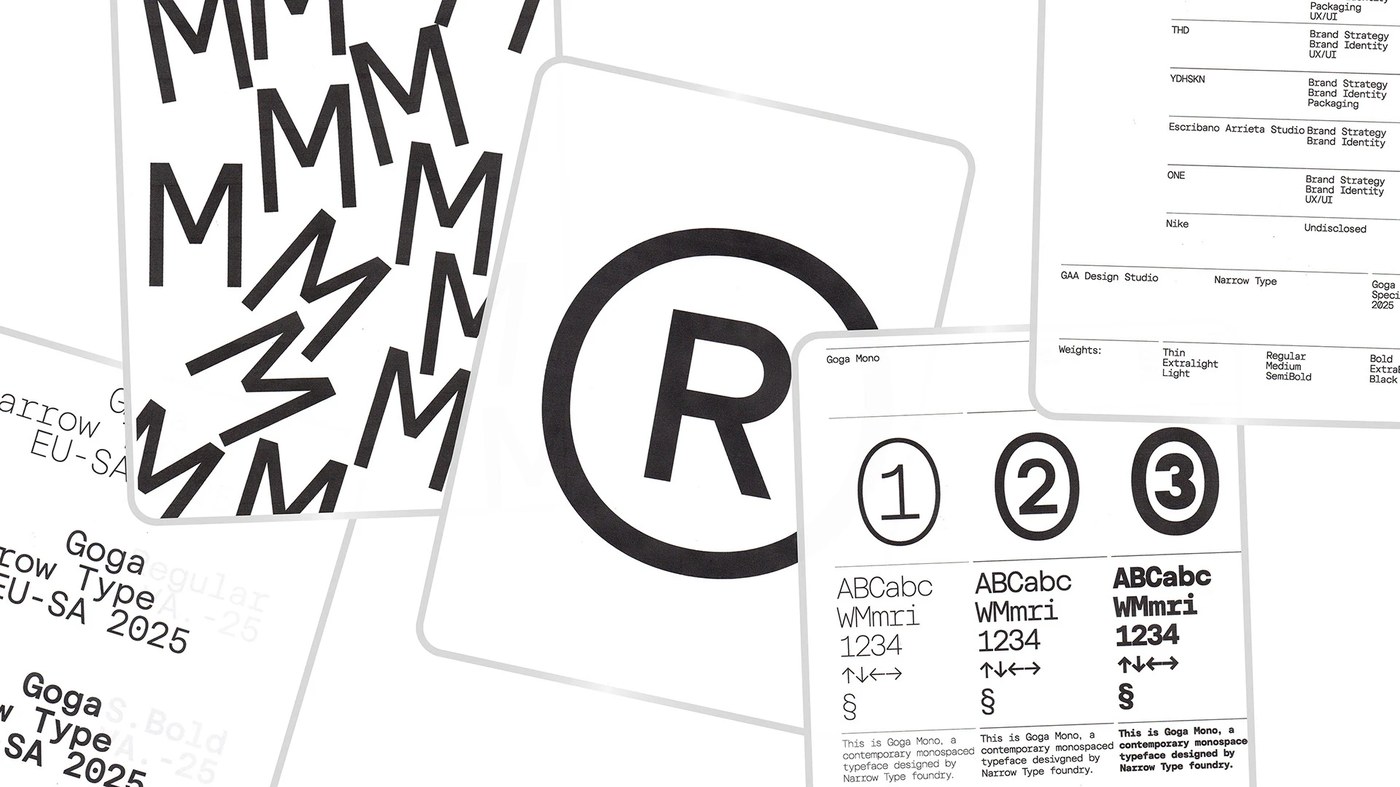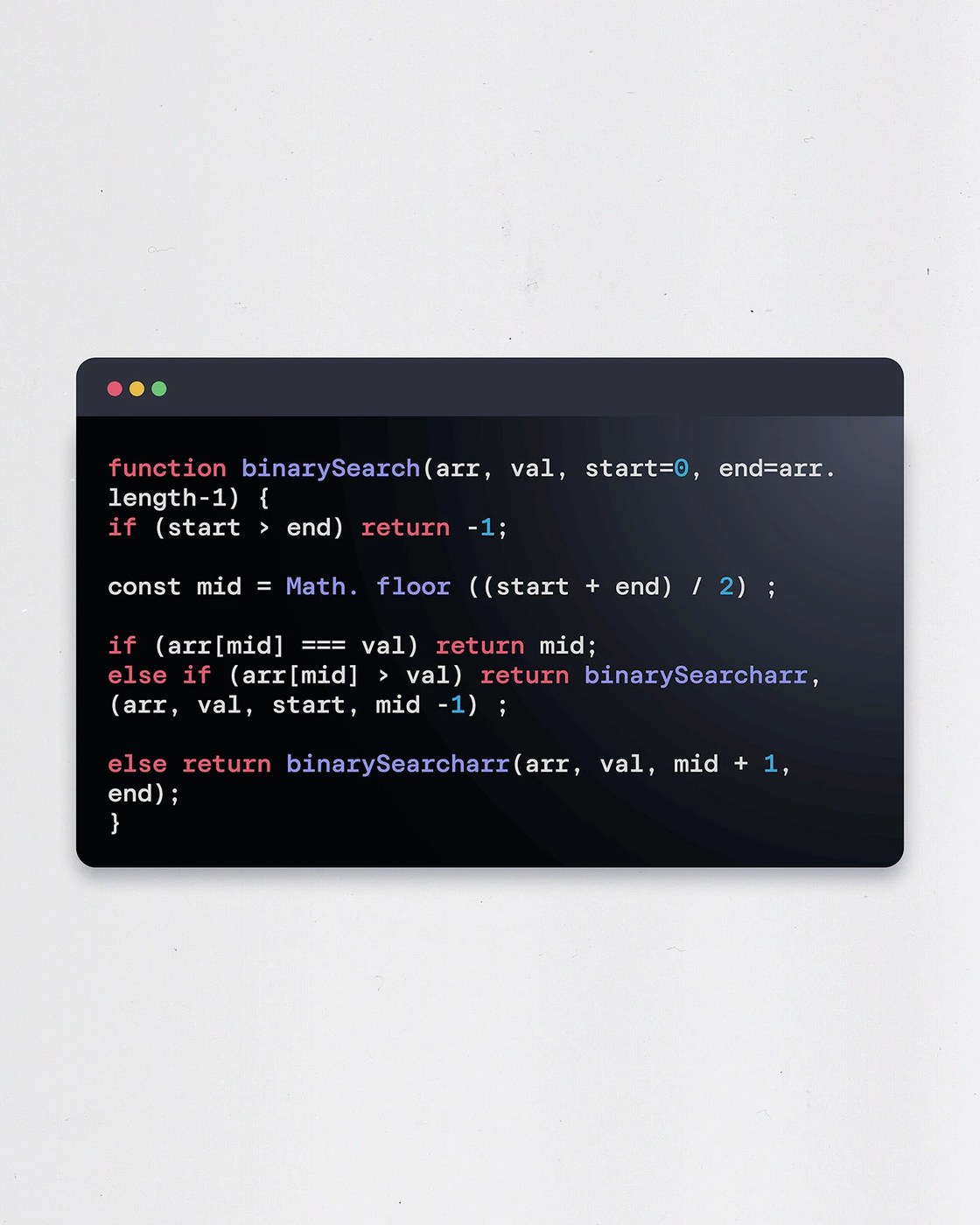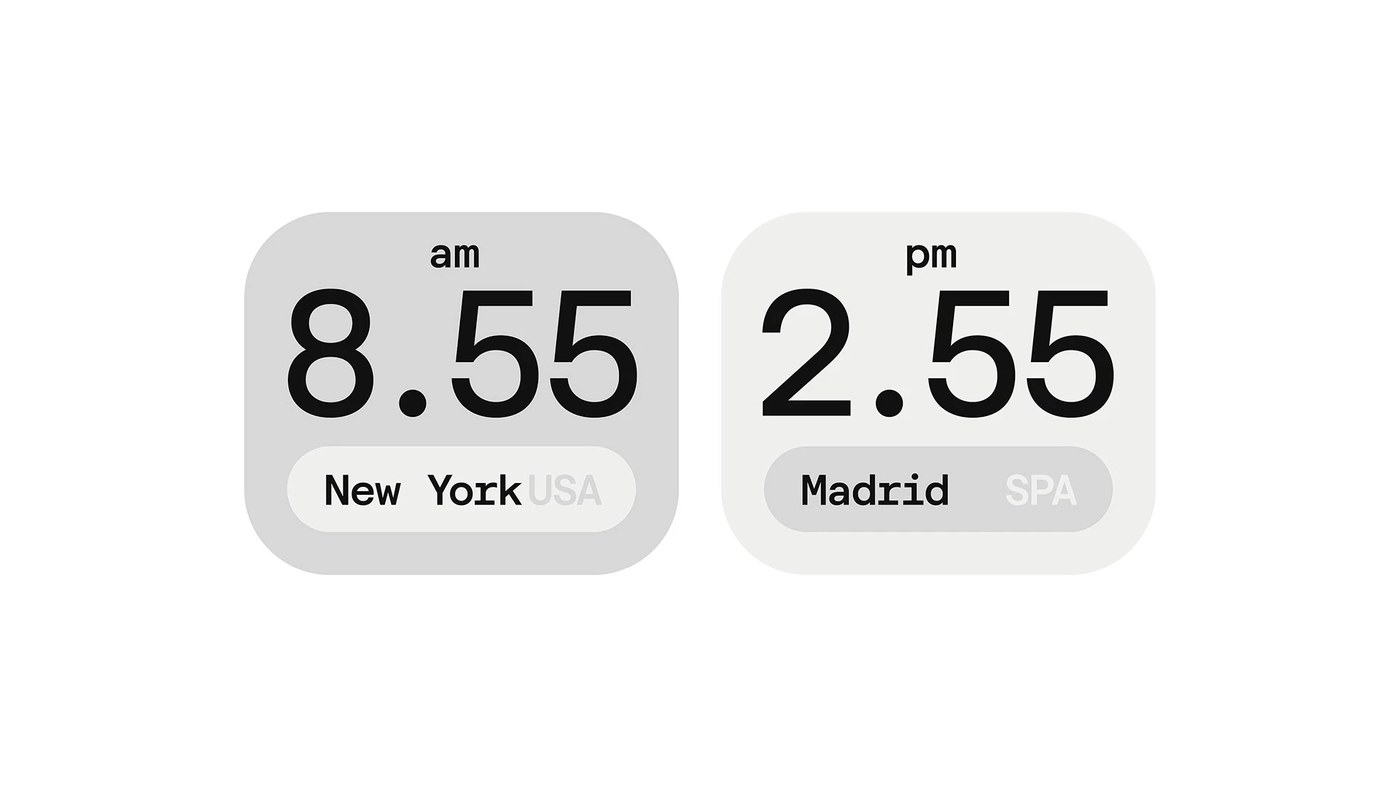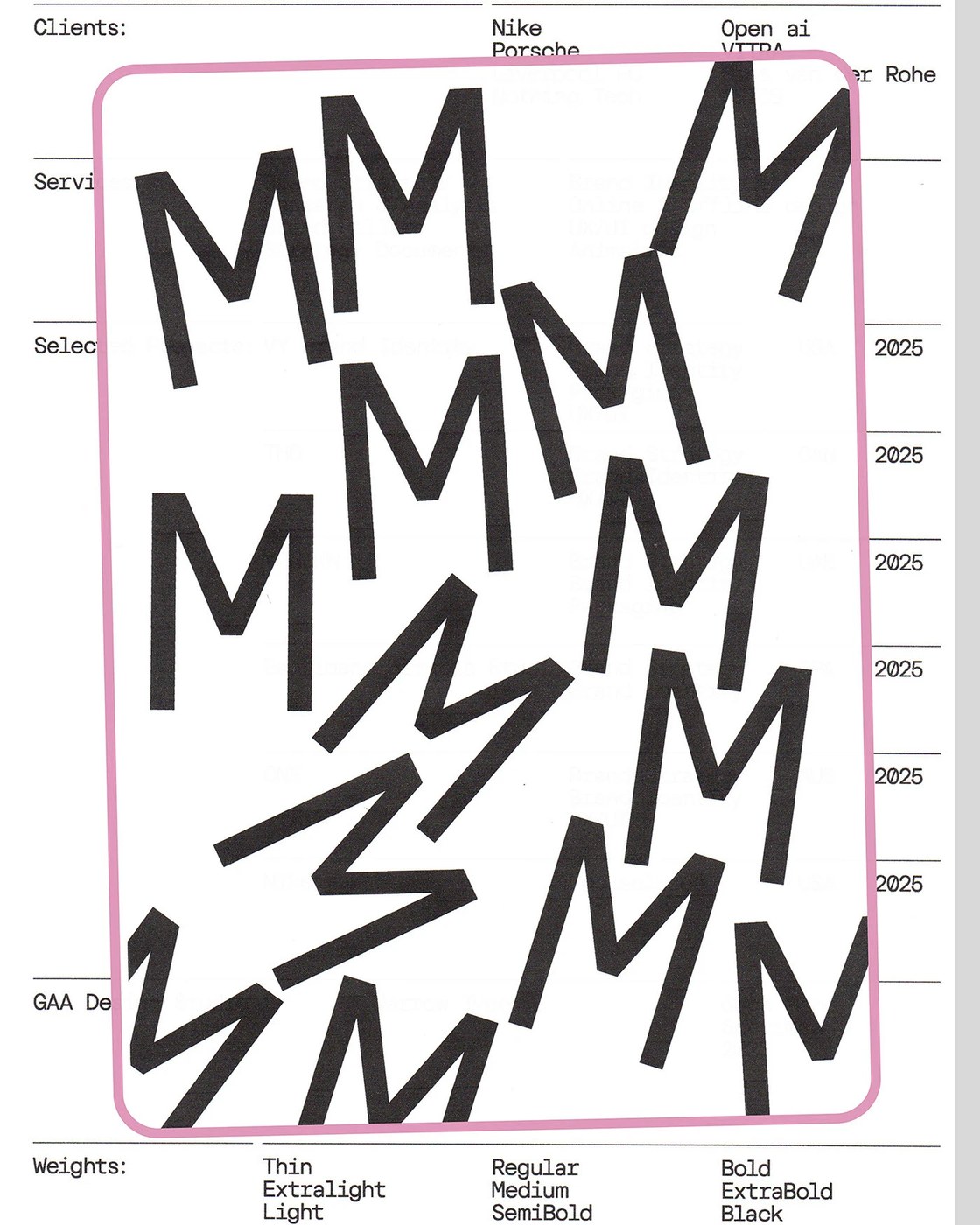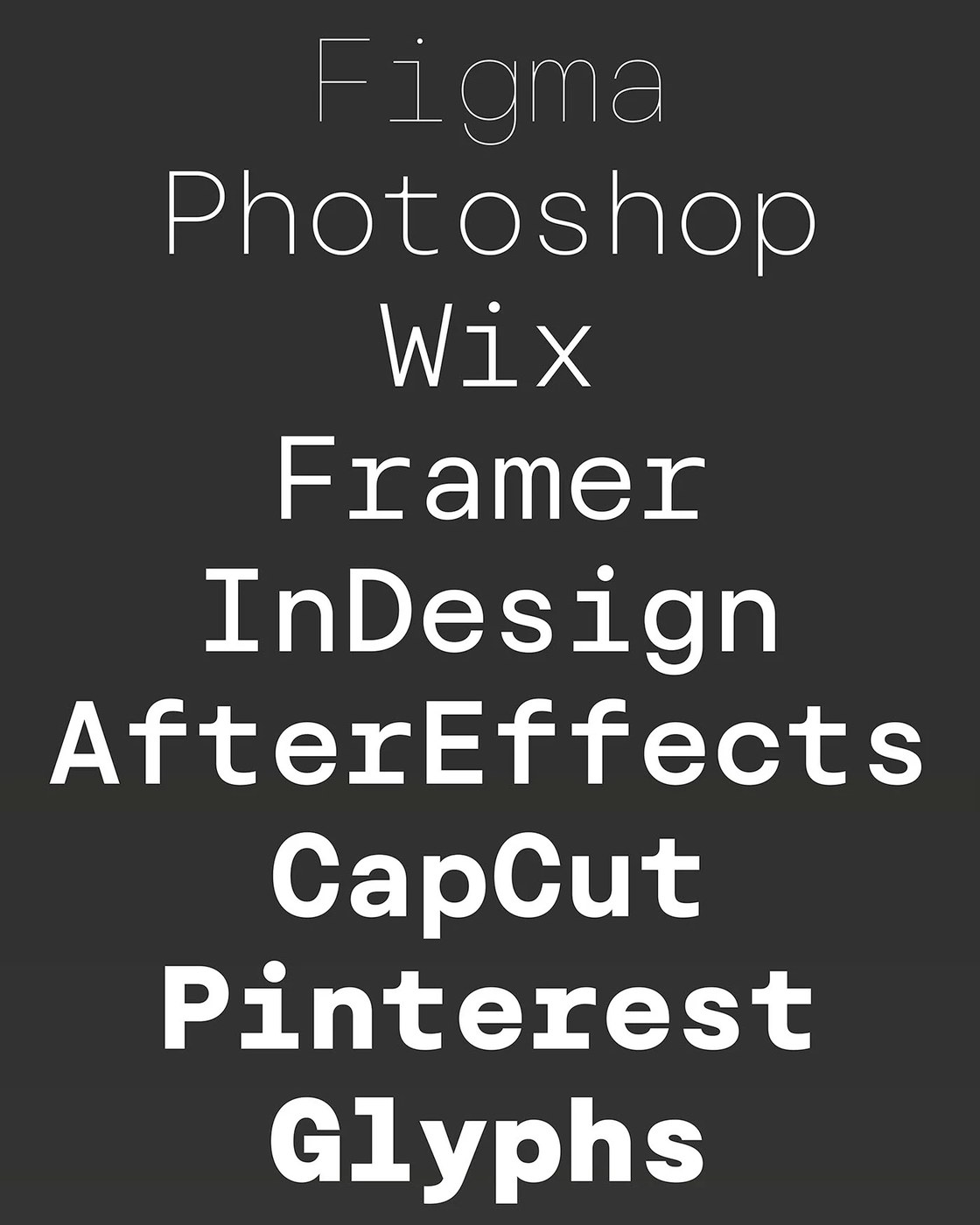
Goga Mono Monospaced Typeface Specimen Unveiled: A Deep Dive into Narrow Type’s Latest Typographic Innovation and Its Impact on Digital Design.
On August 1, 2026, the design world witnessed the formal unveiling of Goga Mono, a groundbreaking monospaced typeface specimen developed by the innovative studio Narrow Type. This release, extensively featured by design platforms like Abduzeedo, introduces a robust typographic system built upon a meticulously crafted 630-unit grid, promising unparalleled precision and aesthetic versatility for a broad spectrum of design applications. Goga Mono distinguishes itself through a sophisticated blend of grotesque and geometric styles, culminating in a family of eighteen distinct weights ranging from delicate thin to impactful black, each accompanied by meticulously matched italics. This comprehensive suite is engineered to provide designers with a complete typographic palette, capable of addressing the complex demands of contemporary digital, print, and editorial landscapes, while simultaneously excelling in highly functional environments such such as coding interfaces.
The Legacy and Evolution of Monospaced Typography
The introduction of Goga Mono arrives at a pivotal moment in the history of typography, underscoring the enduring relevance and evolving aesthetics of monospaced fonts. Historically, monospaced typefaces emerged from the mechanical constraints of typewriters and early computer terminals, where each character, regardless of its inherent width (e.g., ‘i’ versus ‘m’), occupied an identical horizontal space. This uniformity was a practical necessity, simplifying character alignment and facilitating predictable layout in environments with limited graphical capabilities. Over decades, this functional characteristic became deeply ingrained in specific professional domains, particularly in computer programming, where consistent character alignment is crucial for code readability, debugging, and structural comprehension.
However, the journey of monospaced fonts has not been without its challenges. The inherent constraint of fixed-width characters often posed significant hurdles for designers striving for aesthetic balance and optimal legibility. Characters like ‘i’ and ‘l’, when forced into the same width as ‘m’ or ‘w’, can appear disproportionately wide, leading to uneven text density and visual "rivers" of white space within paragraphs. Conversely, wider characters might feel cramped. Early monospaced fonts prioritized utility over artistry, often resulting in designs that were stark, rigid, and lacked the nuanced expressiveness found in their proportional counterparts.
In recent years, a resurgence of interest in monospaced typefaces has been observed across the design industry. This renewed focus is driven by several factors: a nostalgic appreciation for retro computing aesthetics, the increasing prevalence of coding as a mainstream skill, and a growing demand for typefaces that marry the functional clarity of fixed-width systems with modern typographic sophistication. Contemporary designers and type foundries are now challenged to create monospaced fonts that not only serve their traditional functional roles but also possess a distinct personality, improved legibility, and aesthetic appeal suitable for branding, editorial design, and sophisticated digital interfaces. Goga Mono, with its considered design and expansive stylistic range, directly addresses this evolving demand, positioning itself as a significant contribution to this modern wave of monospaced typographic innovation.
Goga Mono’s Distinctive Design Philosophy and Technical Precision
At the heart of Goga Mono’s design lies a commitment to meticulous craftsmanship and a sophisticated understanding of typographic principles. The typeface’s core strength emanates from its innovative 630-unit grid system, a foundational element that dictates the precise construction and spacing of every character.
• The 630-Unit Grid System: A Foundation for Rhythm and Balance
The choice of a 630-unit grid is not arbitrary; it represents a deliberate engineering decision aimed at achieving an extraordinary level of precision and visual harmony. In digital typography, a "unit" typically refers to the smallest divisible increment within a font’s internal design space. By employing a high-resolution grid such as 630 units, Narrow Type has provided ample granular control over the minute details of each character’s form, spacing, and alignment. This level of detail is paramount in monospaced fonts, where the consistent width of each character necessitates careful optical adjustments to maintain an even visual rhythm across a line of text. The 630-unit grid allows designers to meticulously balance stroke weights, counter shapes, and negative space, ensuring that even complex characters maintain their integrity and clarity within the fixed-width constraint. The result is a system where the "strict visual rhythm" is not merely an aspiration but a quantifiable outcome of precise engineering, leading to exceptionally clean and structurally balanced visuals at any scale, from microscopic footnotes to monumental headlines. This precision is further leveraged through the strategic application of structural white space, which acts as an integral design element, defining grid lines and guiding the reader’s eye through complex layouts. The interplay of large, impactful letters with tiny, refined details creates a dynamic compositional tension, ensuring that each page or screen feels simultaneously stable and visually engaging.
• A Spectrum of Expression: The 18 Styles and Matching Italics
Goga Mono’s expansive type family comprises eighteen distinct styles, a remarkable breadth for a monospaced typeface. This comprehensive range, spanning from an ethereal thin to a commanding black, provides designers with an extraordinary palette for typographic expression and hierarchy. Each weight is carefully calibrated to offer crisp, dynamic contrasts, allowing for nuanced shifts in tone and emphasis.
The lighter weights (Thin, Extra Light, Light) are ideal for conveying delicacy, modernity, and high clarity, particularly in large blocks of text where legibility is paramount, or for subtle design elements. Conversely, the heavier weights (Semi Bold, Bold, Extra Bold, Black) inject power and prominence, making them perfect for crafting bold headlines, calls to action, or conveying a sense of authority and impact in branding.
Crucially, each of these eighteen weights is accompanied by meticulously designed matching italics. The inclusion of true italics, rather than simply slanted obliques, introduces an elegant structural variation that enhances both readability and aesthetic appeal. Italics serve not only to emphasize specific words or phrases but also to break the visual monotony inherent in monospaced text, adding flow and sophistication without compromising the font’s underlying grid system. This comprehensive stylistic depth empowers designers to create rich, multi-layered typographic compositions that maintain visual consistency while offering abundant expressive possibilities.
• Harmonizing Grotesque and Geometric Styles
One of Goga Mono’s most compelling design attributes is its successful fusion of grotesque and geometric typographic traditions. Grotesque typefaces, which emerged in the 19th century, are characterized by their industrial, often sans-serif forms, typically featuring uniform stroke widths, minimal contrast, and a utilitarian aesthetic. They convey a sense of directness, efficiency, and robustness. Geometric typefaces, on the other hand, are rooted in the early 20th-century modernist movements, drawing their letterforms from basic geometric shapes such as circles, squares, and triangles. They often exhibit a clean, rational, and highly structured appearance, embodying principles of clarity and simplicity.